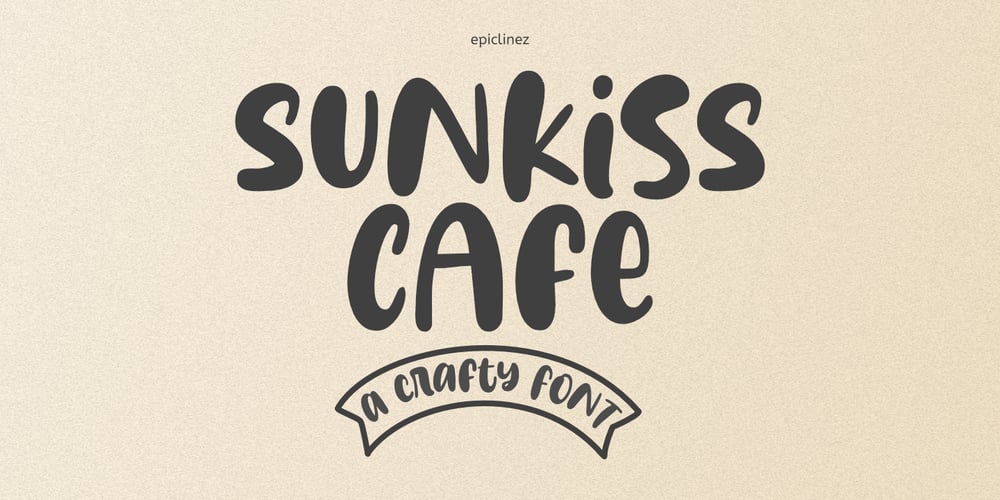
Sunkiss Cafe
Sunkiss Cafe font
Sunkiss Cafe Font Family was designed by Aldy Sidik and published by Epiclinez. Sunkiss Cafe contains 1 styles and family package options. Sunkiss Cafe is a cute and funny handwritten font. It’s simple and friendly style makes this design incredibly versatile, fitting a wide variety of creative ideas.